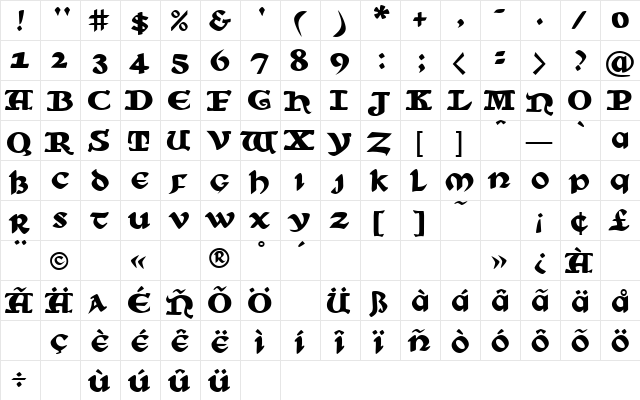
SunSplash Heavy
Design Context for SunSplash Typeface
SunSplash is a composed and adaptable typeface that performs quietly and consistently across a wide range of design contexts.